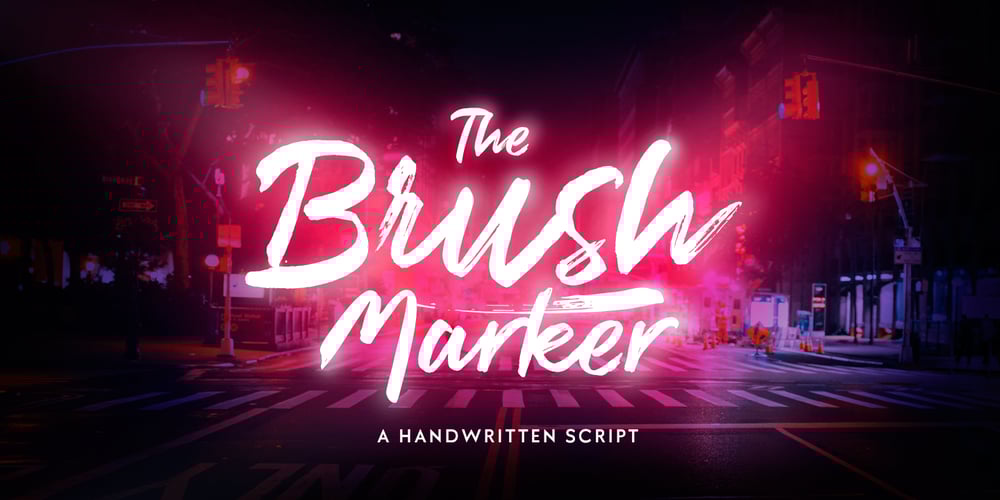
Brush Marker Font Family was designed by Emil Karl Bertell and published by Fenotype. Brush Marker contains 2 styles and family package options. Brush Marker is a strong hand drawn dry brush font. Brush Marker is great for headlines and logotype use. Brush Marker is packed with automatic Contextual Alternates and Standard Ligatures that keep the text vivid. Brush Marker has a wide language support and it is PUA encoded so you can access extra glyphs in most graphic design softwares.